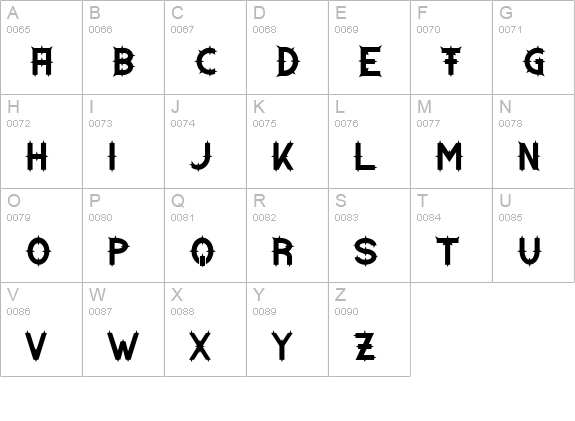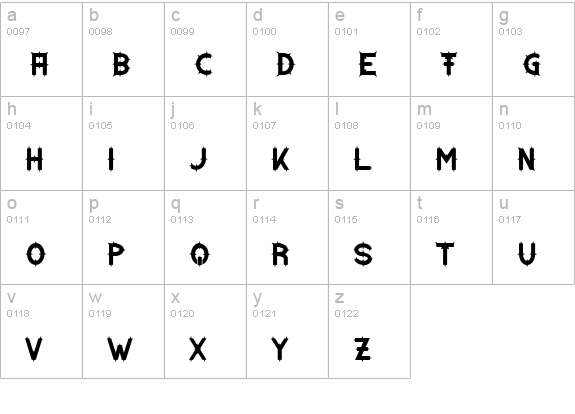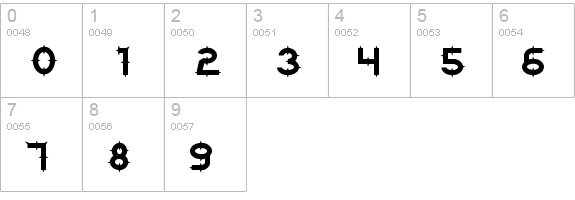
Dornen Font Details
Dornen font is a beautifully crafted typeface that exudes elegance and sophistication. With its sharp, angular edges and intricate details, this font is perfect for adding a touch of modernity to your designs. The unique design of Dornen font makes it stand out from the crowd and adds a stylish flair to any project. What's even better is that Dornen font is completely free to download at FontsMarket.com. This means that you can easily access this stunning font and use it in your personal or commercial projects without any cost. Whether you are creating a logo, website, poster, or any other design, Dornen font is sure to make a statement and elevate your work to the next level. Don't miss out on the opportunity to enhance your designs with the striking beauty of Dornen font. Download it for free today and let your creativity shine!